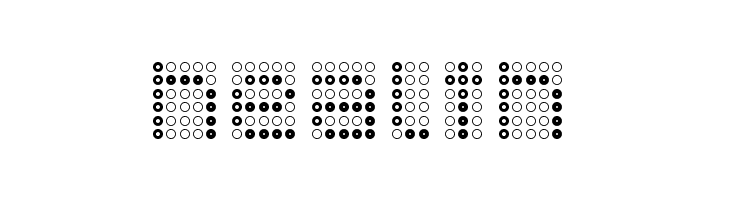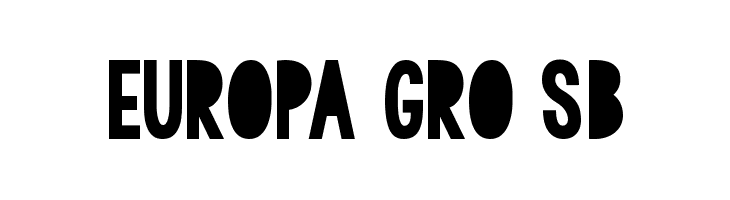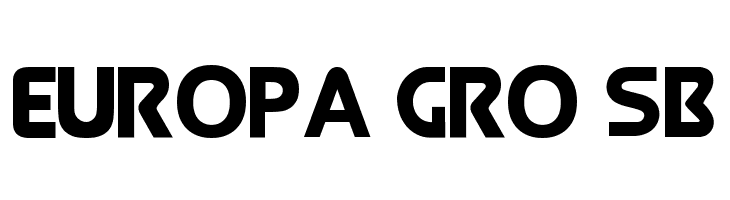
A bold, angular font with a calligraphic and graffiti-inspired style.
A decorative font made of circular patterns forming each character.
A bold, geometric font with a modern and assertive style.
A bold, geometric font with strong, angular lines and consistent stroke widths.
A bold, playful handwritten font with dynamic strokes.
A bold, modern sans-serif font with clean lines and strong readability.
A bold, slab serif font with a strong, modern presence.
A dynamic brushstroke font with an artistic and calligraphic style.